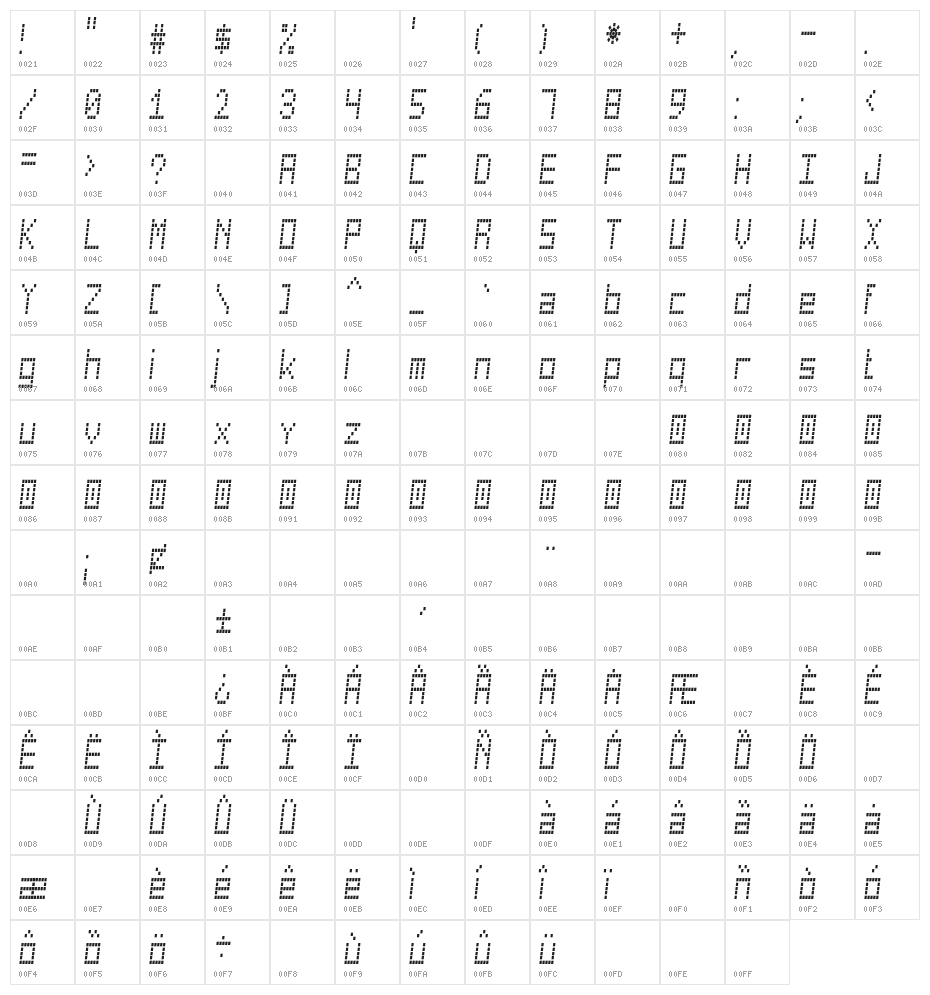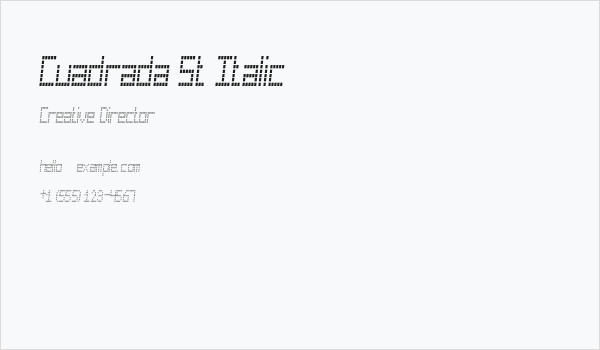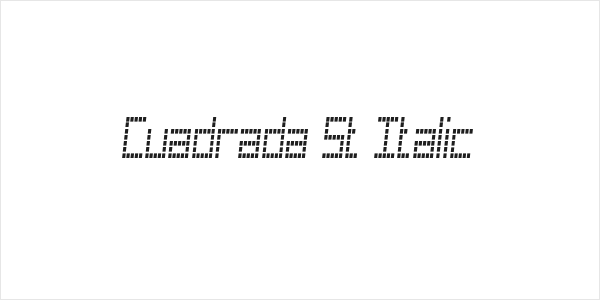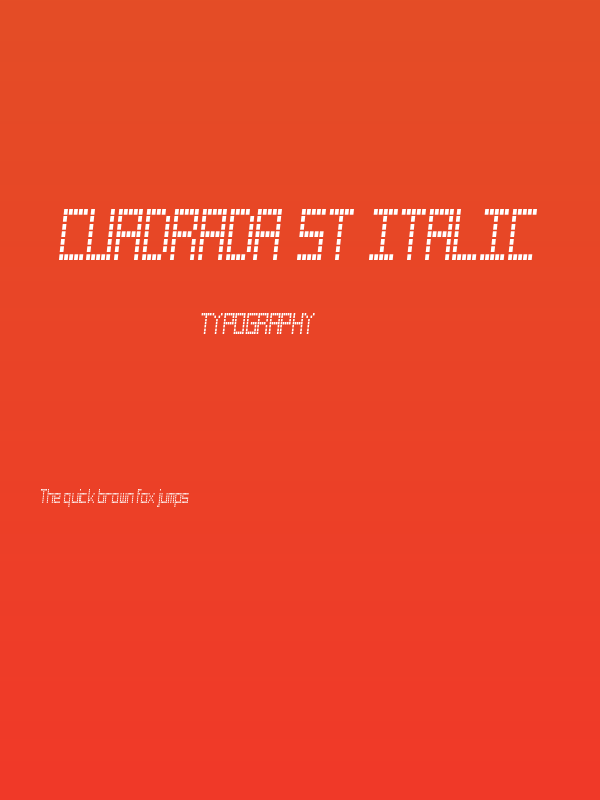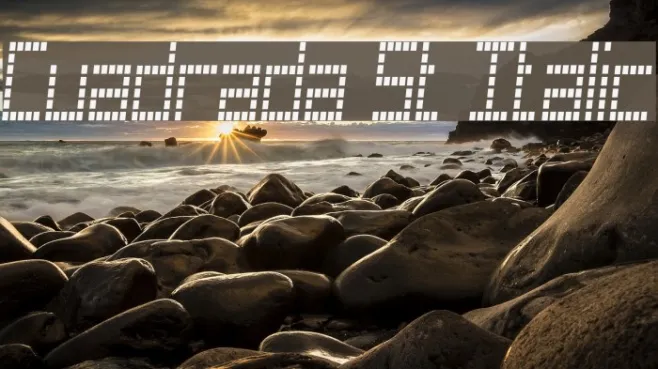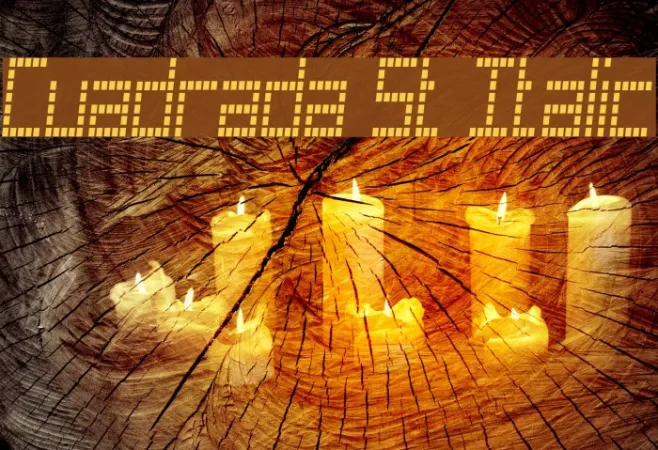
Cuadrada St Italic Font
Cuadrada St Italic Description
This font features a unique, pixelated design that mimics the appearance of digital displays or LED screens. Each character is constructed from a grid of small squares, giving it a distinctly modern and technological feel. The italic style adds a dynamic slant to the characters, enhancing their futuristic aesthetic. The uppercase and lowercase letters maintain a consistent structure, while the numerals and special characters are equally stylized, ensuring uniformity across the font. Its geometric nature makes it highly legible at various sizes, though it is best suited for larger displays where its intricate design can be fully appreciated.
| Proposed Projects | Ideal for digital displays, tech-themed posters, video game graphics, and modern art installations. |